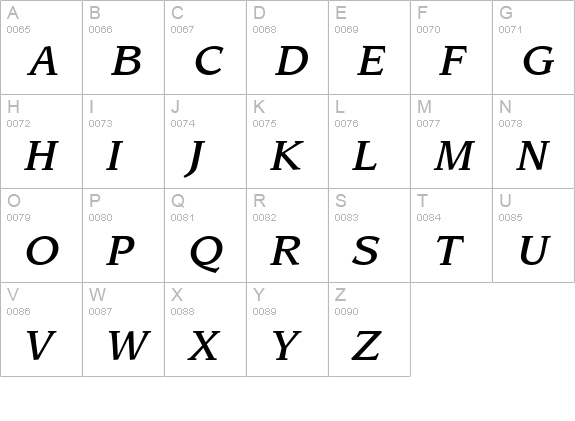
Advisor Medium SSi Medium Italic Font Details
Advisor Medium SSi Medium Italic is a balanced, medium-weight, italic variant in the Advisor typeface family \xE2\x80\x94 well suited to sub-headlines, navigation, and balanced editorial work.
The Advisor Medium SSi Medium Italic font exudes a sense of professionalism and modernity with its sleek design and elegant italicized style. Its medium weight strikes the perfect balance between boldness and subtlety, making it versatile for a wide range of design projects. This font is a must-have for those looking to add a touch of sophistication to their work, whether it be in branding, editorial design, or advertising. Its clean lines and smooth curves create a polished and refined look that will elevate any project. Best of all, this font is available for free download at FontsMarket.com. So go ahead and enhance your designs with the Advisor Medium SSi Medium Italic font today!